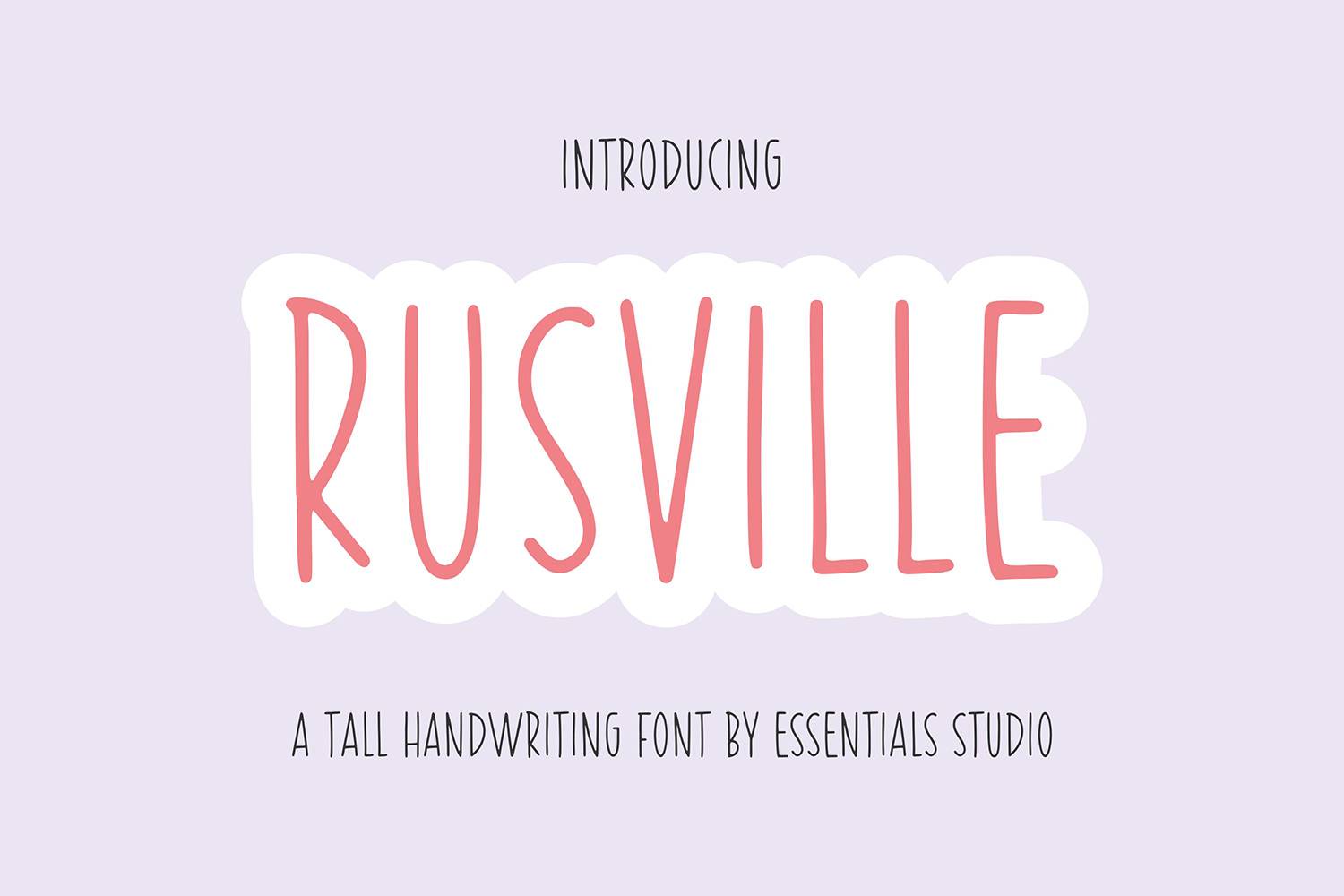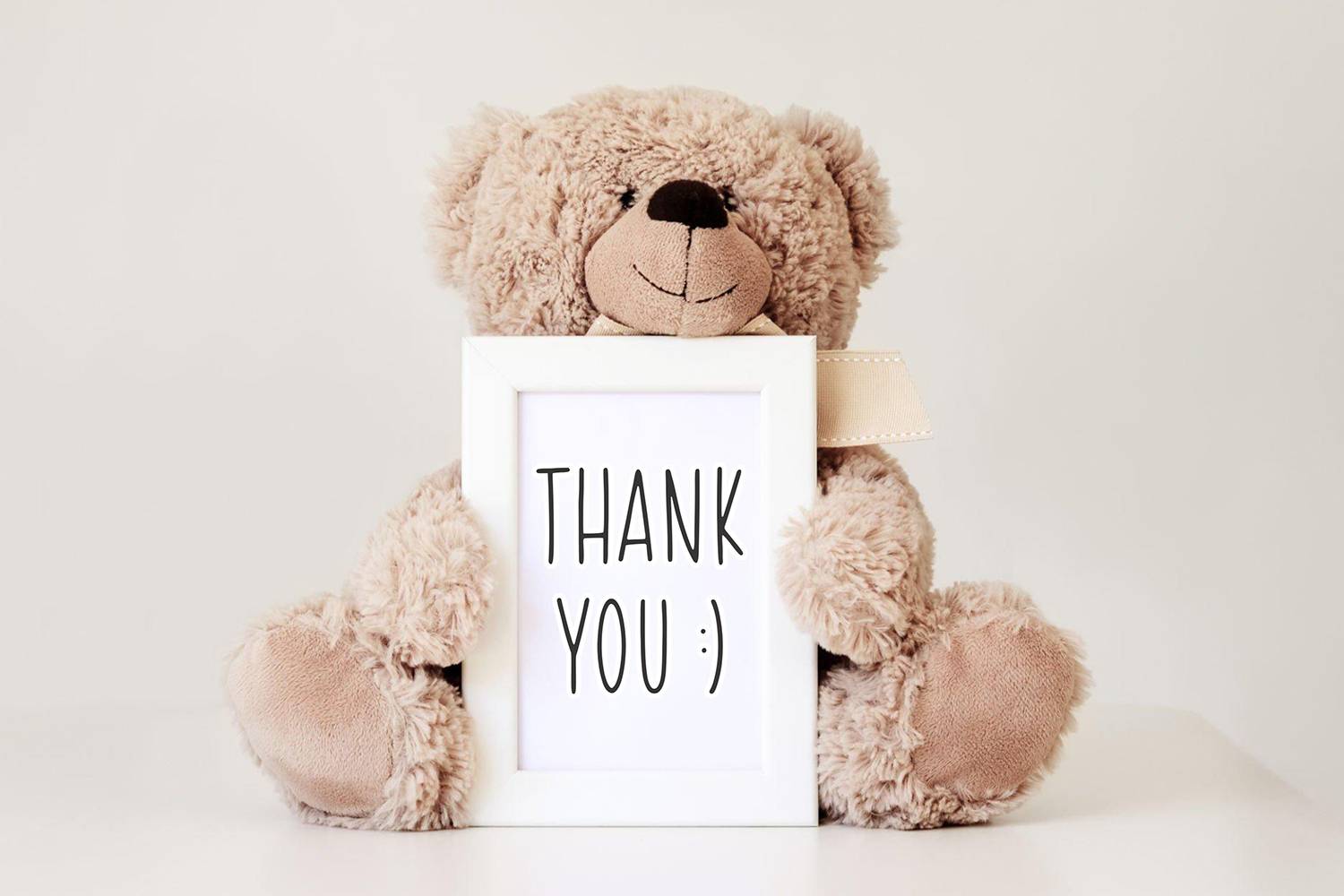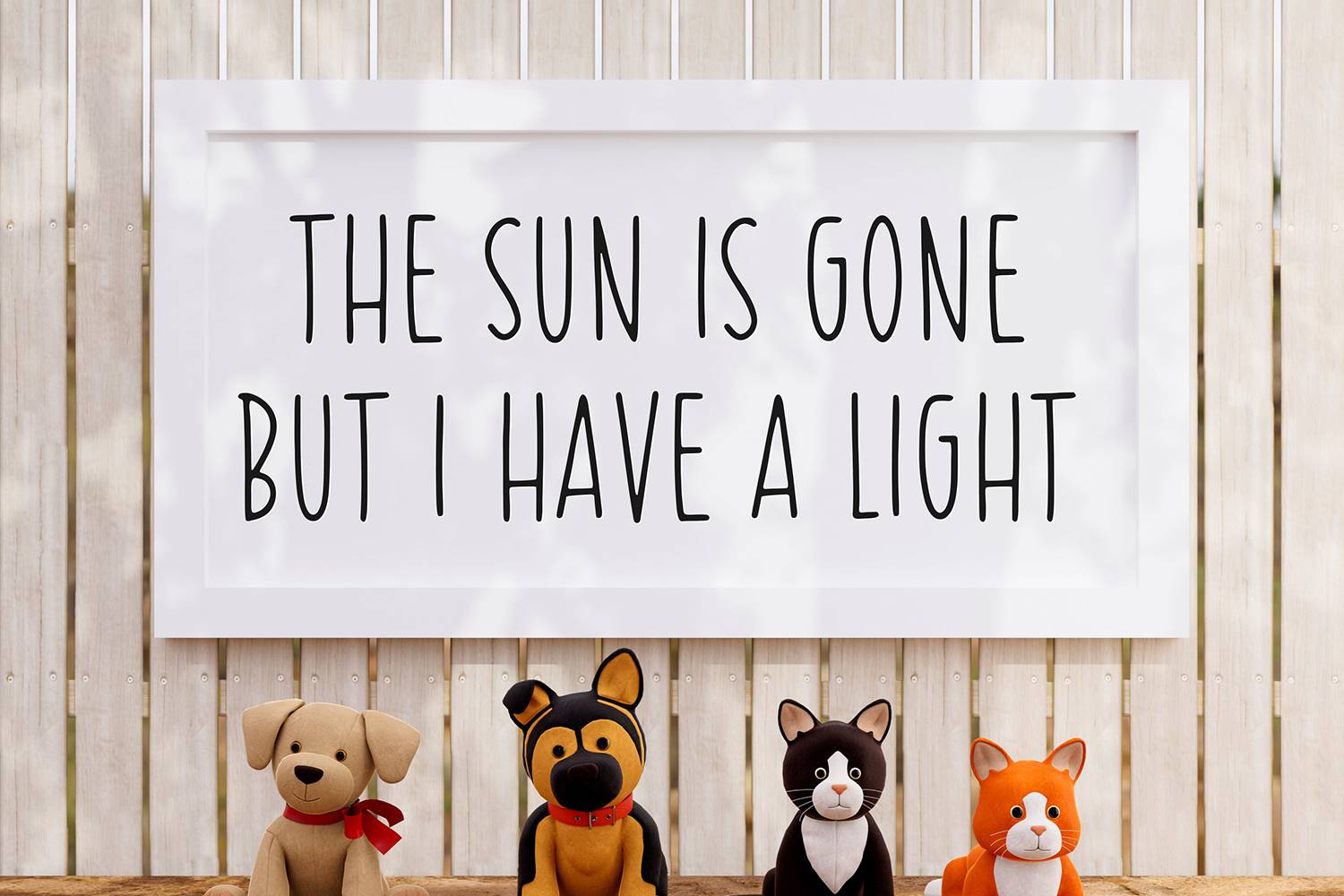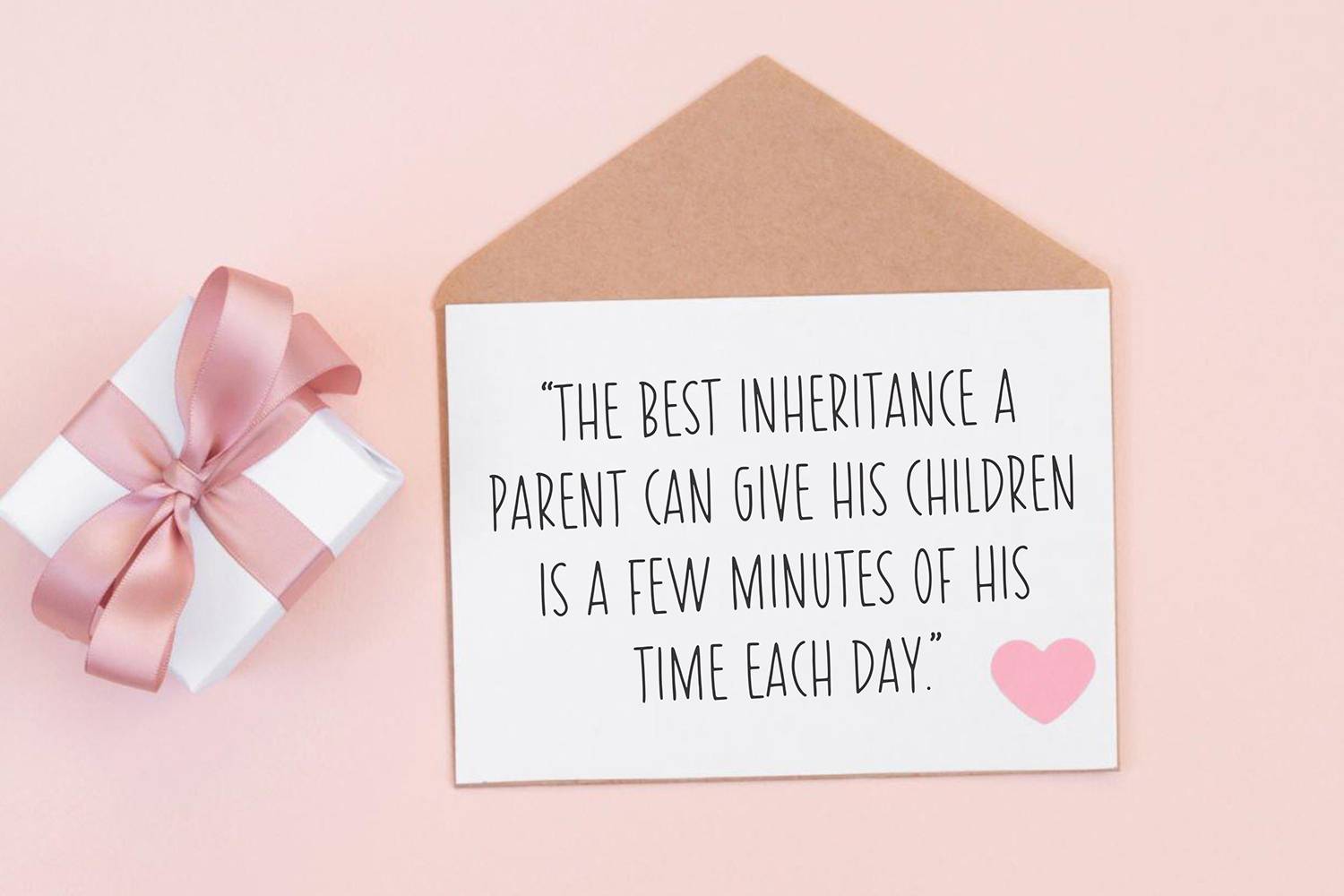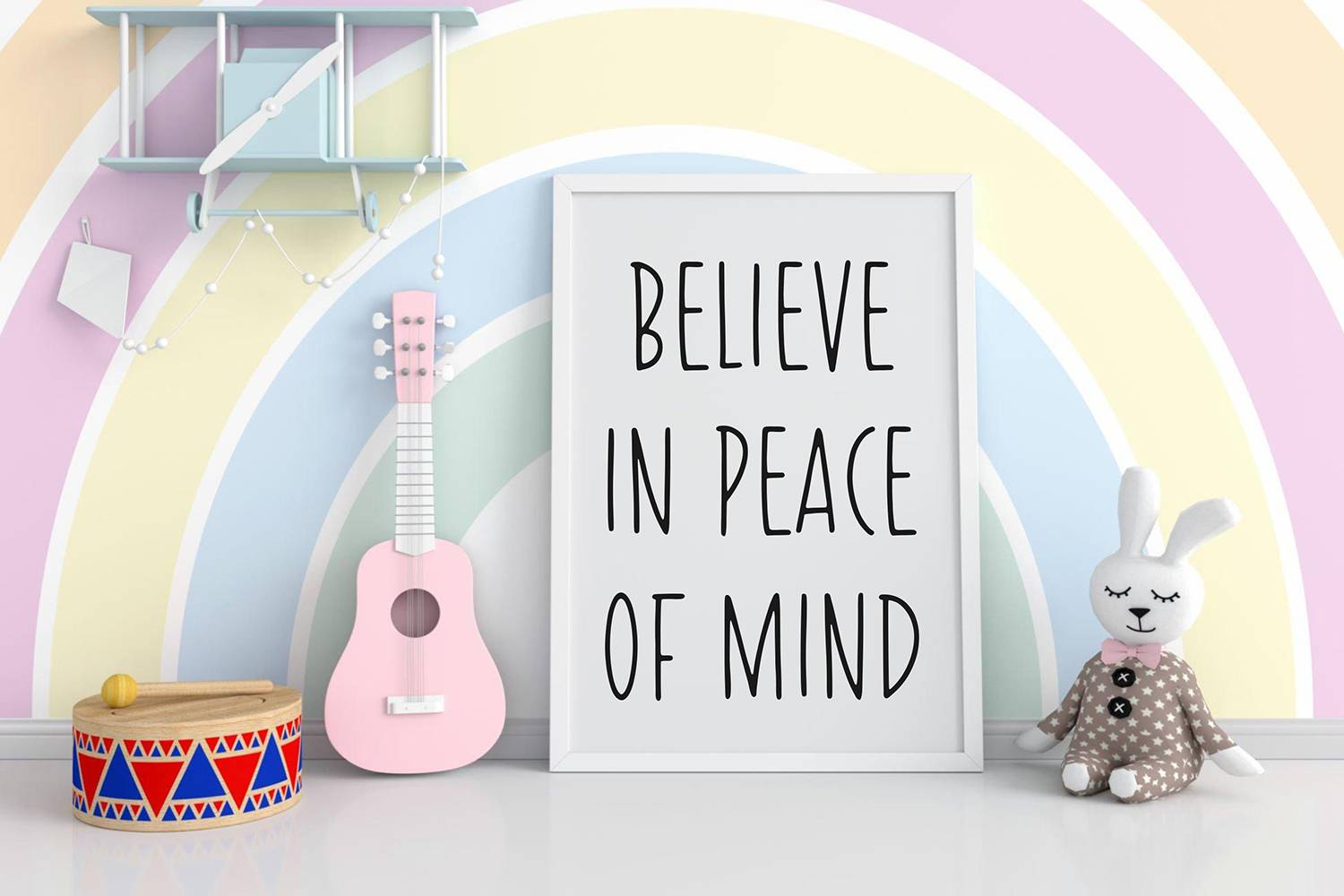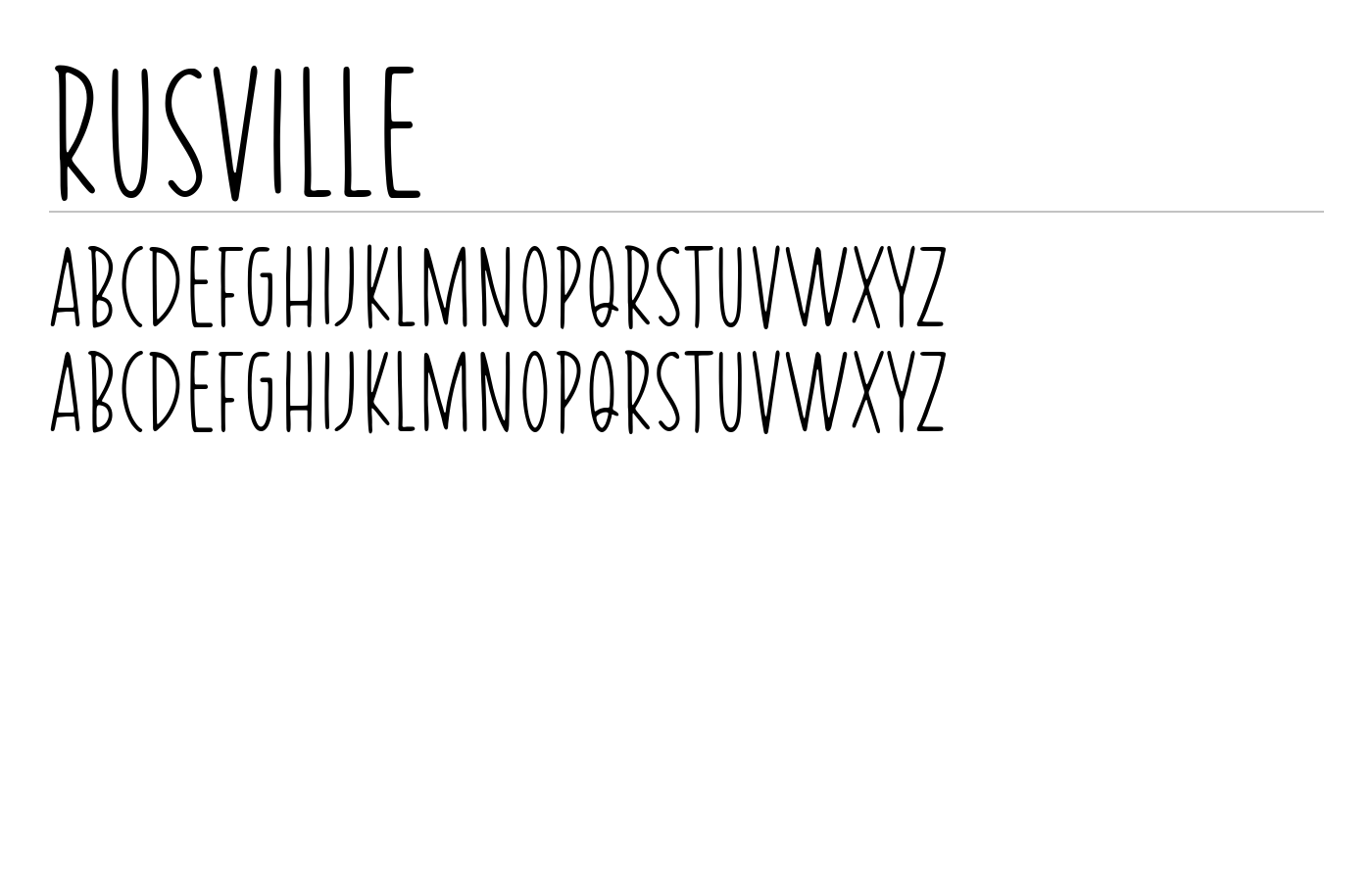
Rusville is a tall, narrow sans serif font with a hand-drawn, casual feel. Its thin strokes and slightly irregular shapes give it a friendly, approachable character ideal for playful and informal designs. This font works well for headlines, logos, and creative projects needing a unique, personal touch.
Rusville Font
About Rusville Font
| Designer | Annas Rifky Anhar |